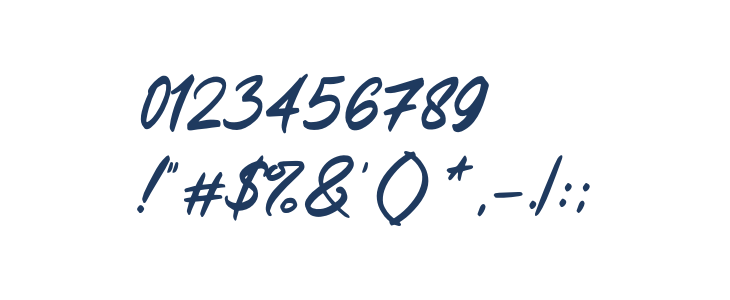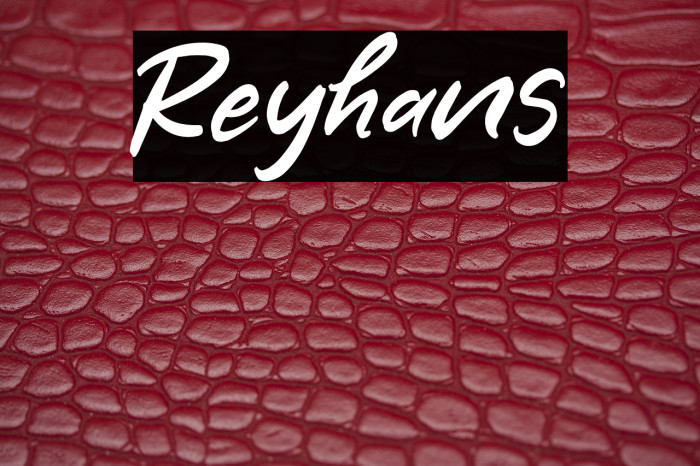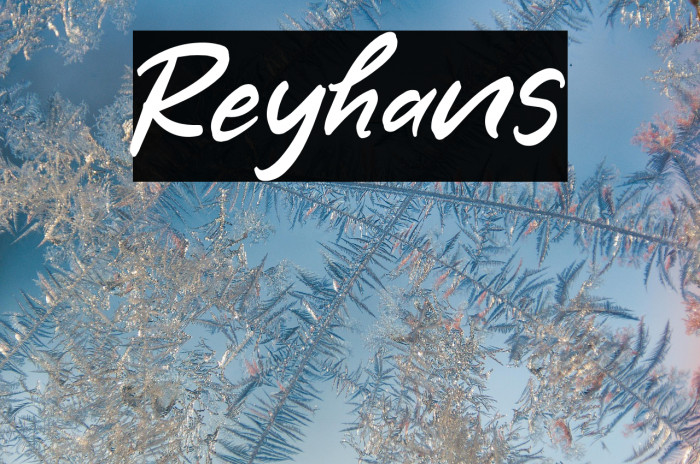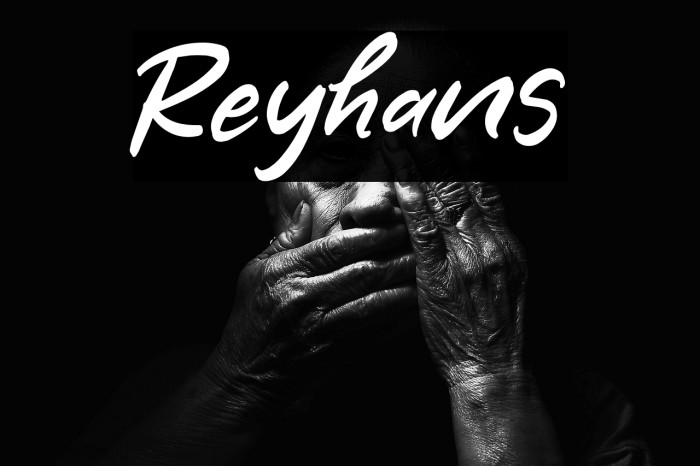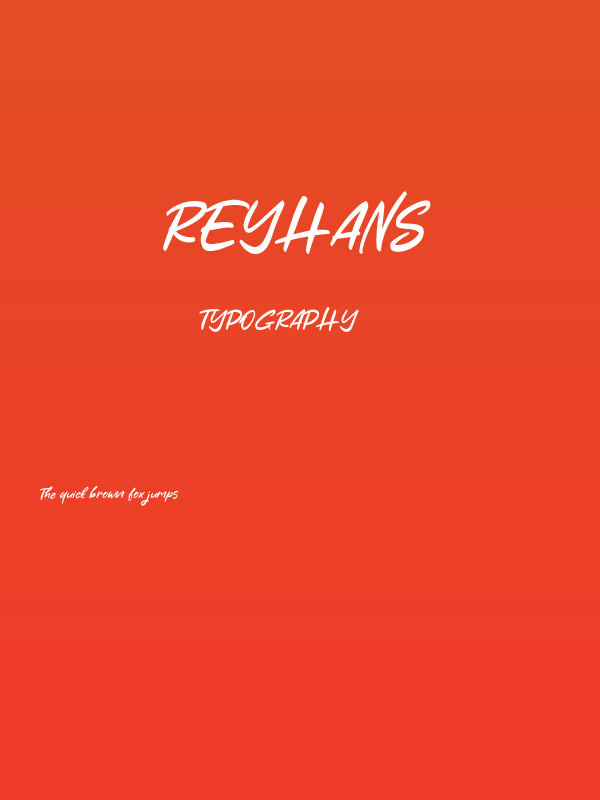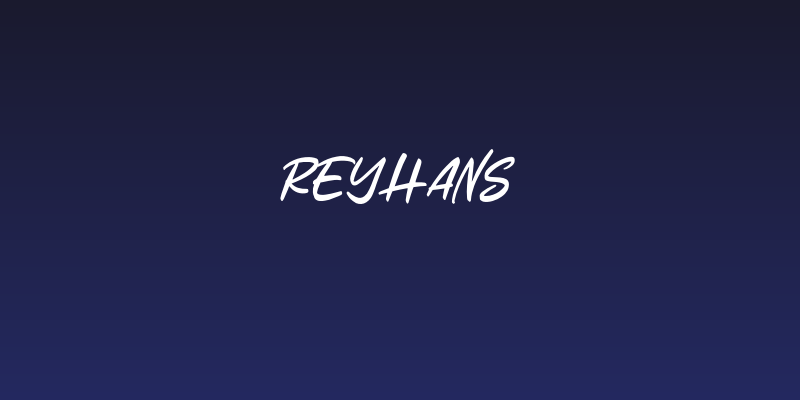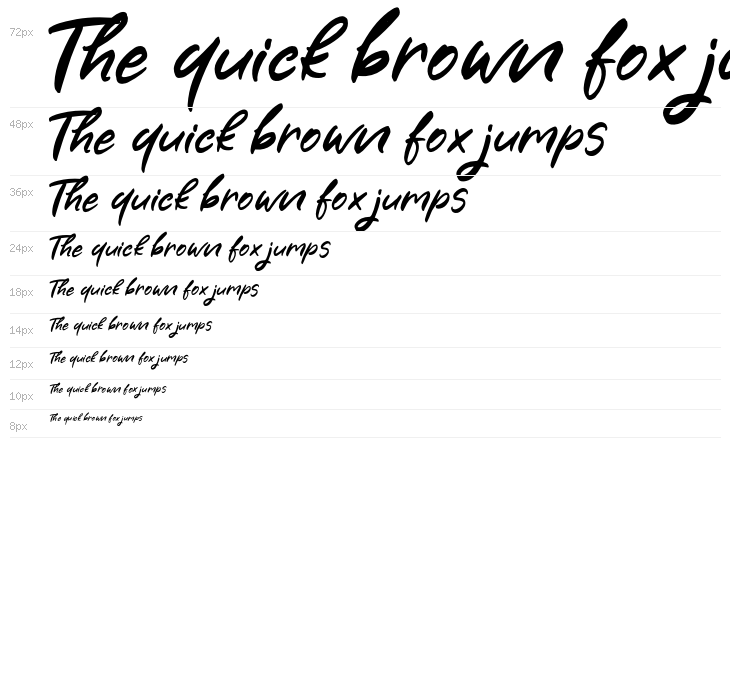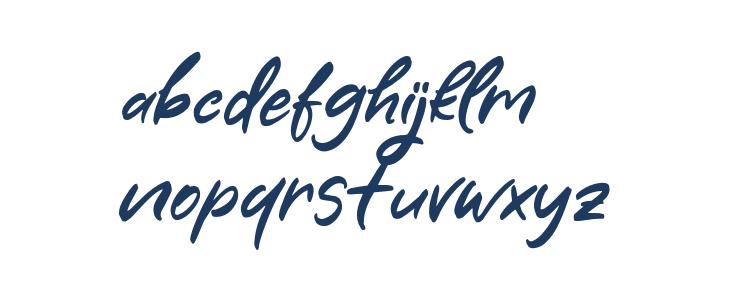
Reyhans Font
Reyhans Description
This font exudes a lively and dynamic energy with its bold, cursive style. Each character flows seamlessly into the next, creating a sense of movement and fluidity. The strokes are thick and confident, giving the font a strong presence. Despite its boldness, the font maintains a sense of elegance and sophistication, making it suitable for a variety of applications. The uppercase letters are slightly larger and more pronounced, while the lowercase letters maintain a consistent flow. Numbers and special characters are designed with the same attention to detail, ensuring a cohesive look across all elements.
| Use Case | Logos, Invitations, Creative projects |
| Proposed Projects | Ideal for branding, invitations, and creative projects that require a personal touch. |